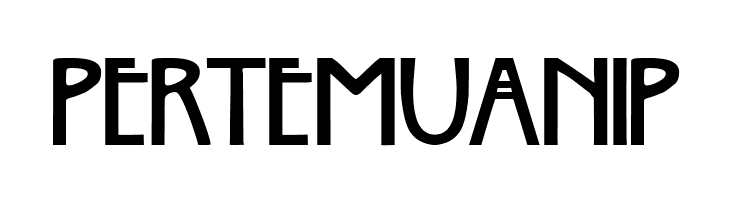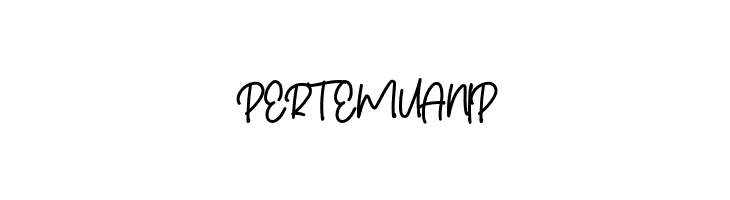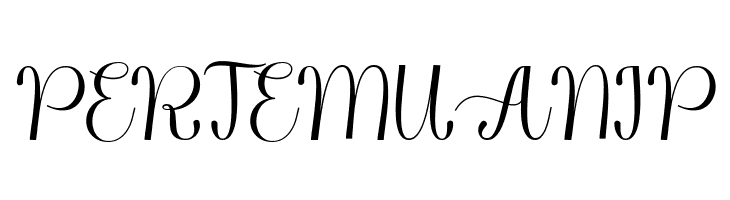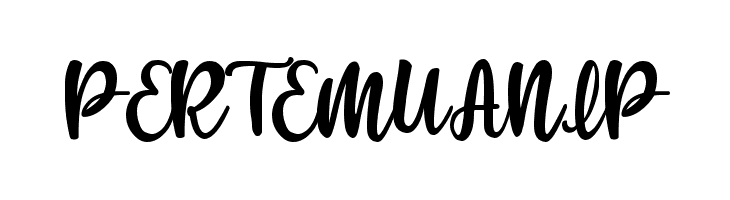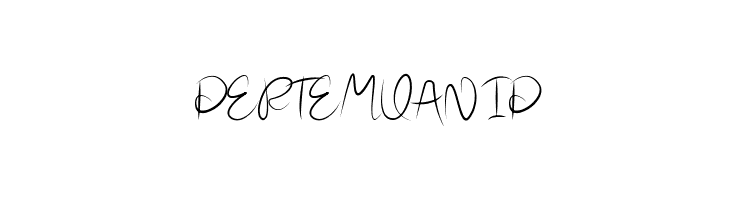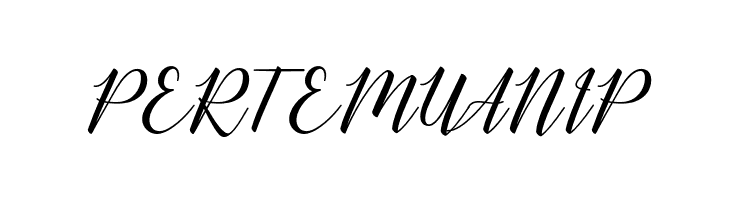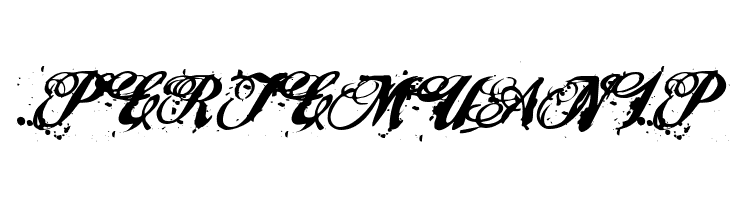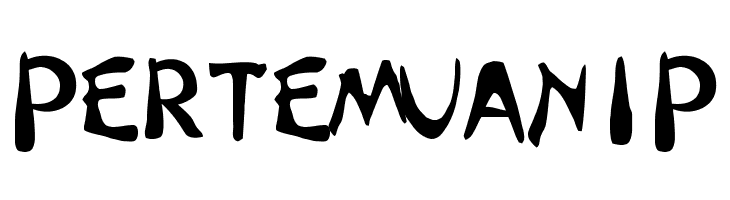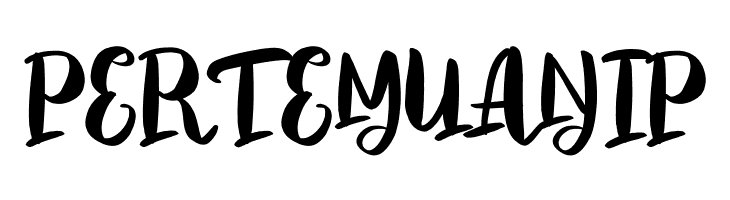
A bold, decorative font with medieval influences and intricate serifs.
A whimsical and elegant script font with flowing, cursive letters and playful flourishes.
An elegant script font with flowing, interconnected characters and ornate flourishes.
A bold, flowing script font with a lively, handwritten style.
A fluid and elegant script font with a dynamic, handwritten style.
An ornate and decorative script font with bold strokes and intricate flourishes.
A bold, dynamic script font with elegant, flowing letterforms.
A bold, modern sans-serif font with excellent readability and balanced proportions.
A bold, modern sans-serif font with clean lines and excellent legibility.
A bold, italic font with a modern and clean design.
A modern, italic sans-serif font with clean lines and a dynamic style.
A clean and modern sans-serif typeface with excellent readability.
A playful and elegant script font with flowing, cursive letters.
A flowing, cursive script font with elegant curves and a handwritten style.
A bold, expressive brush-style font with a dynamic, hand-painted look.
Elegant handwritten script font.
A whimsical script font with flowing, interconnected letters and playful loops.
A sophisticated script font with elegant, flowing strokes and high contrast.
A graceful, calligraphic script font with elegant flourishes.
A bold, elegant script font with flowing, cursive strokes.
A dynamic script font with fluid, interconnected strokes and elegant style.
A bold, brush-style font with an energetic and handcrafted appearance.
A graceful and elegant script font with flowing, connected letterforms.
A playful and whimsical script font with decorative loops and swirls.
A playful, hand-drawn font with bold, uneven strokes and quirky serifs.